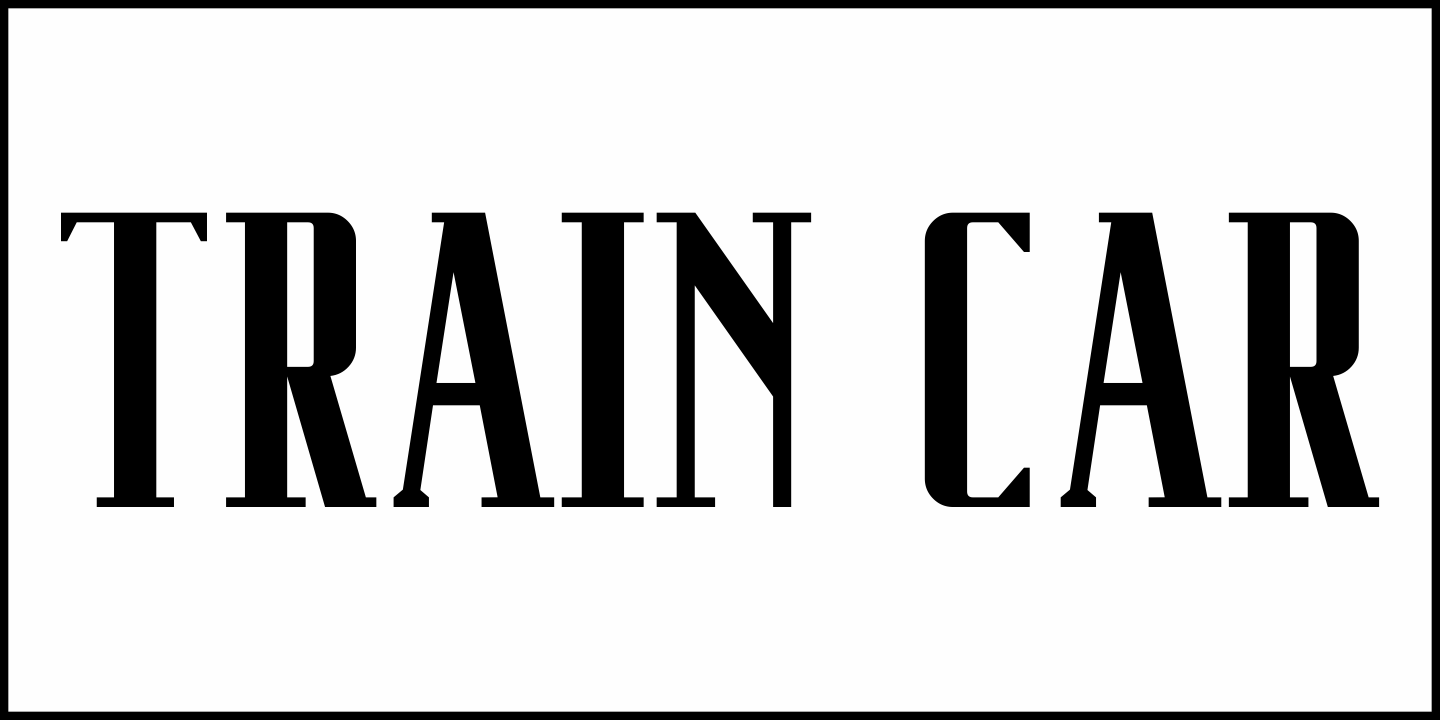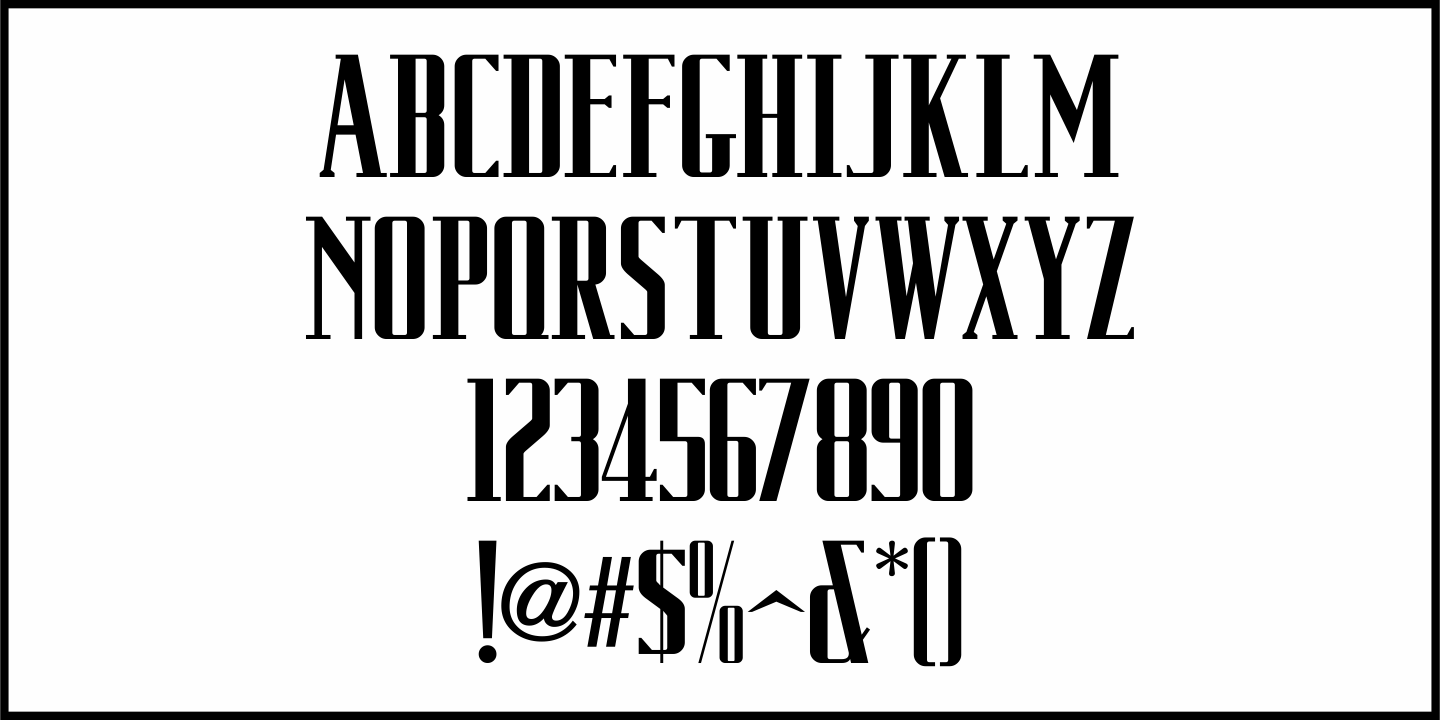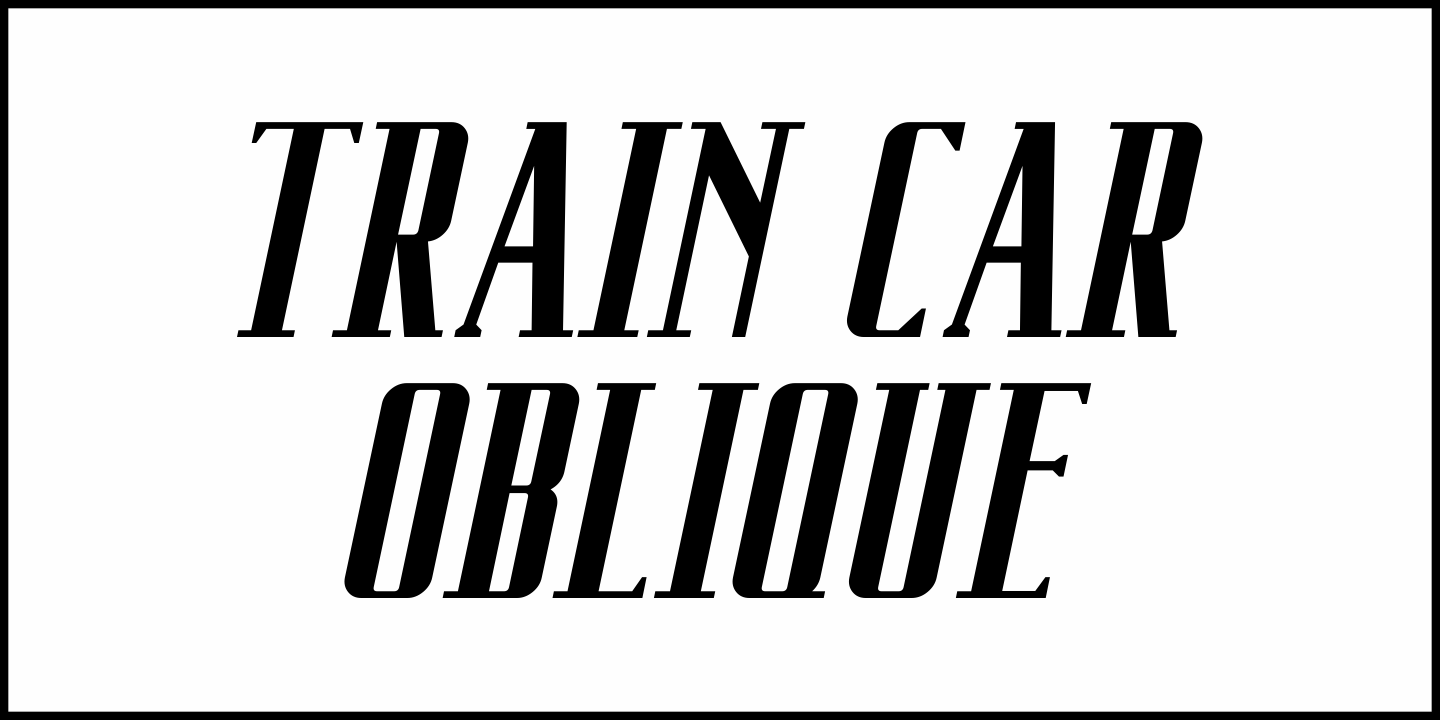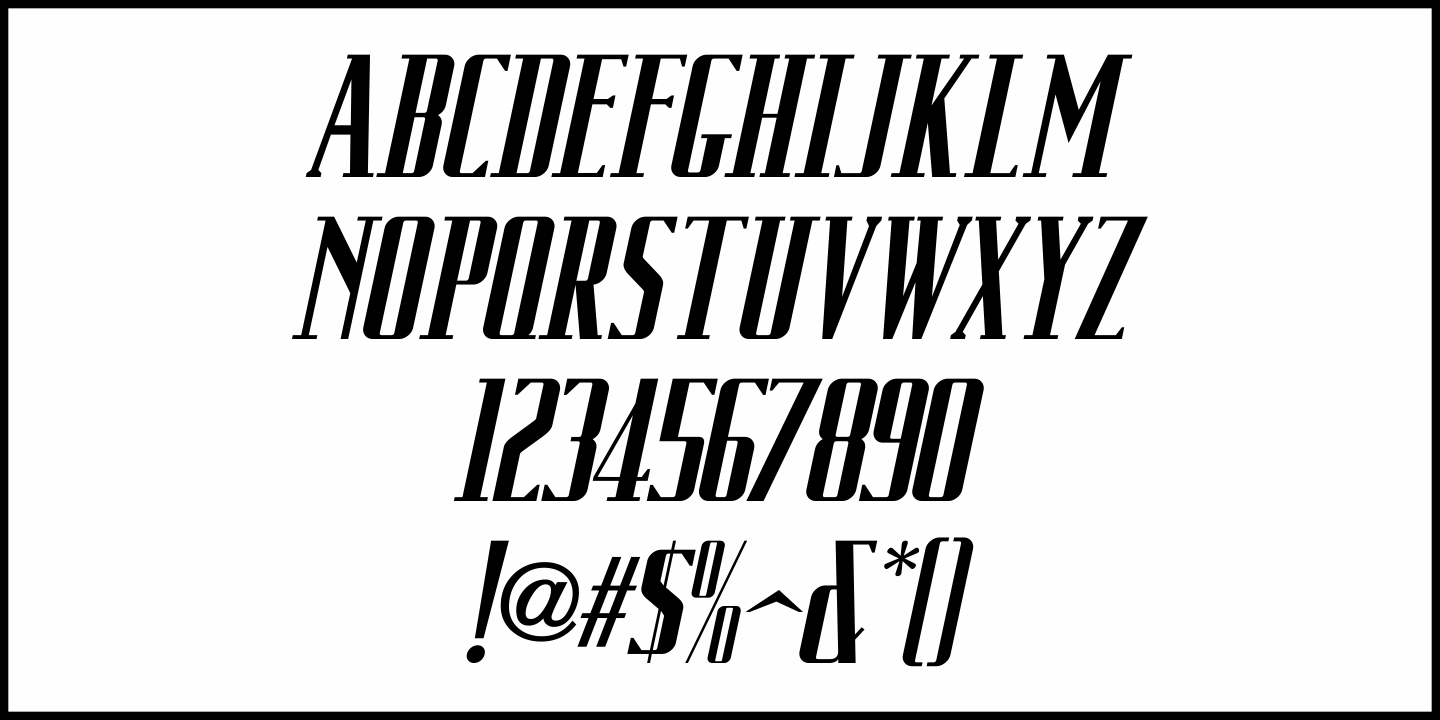
Train Car
Hand lettering from the opening credits of Alfred Hitchcock’s “Strangers on a Train” (1951) inspired Train Car JNL, which is available in both regular and oblique versions.